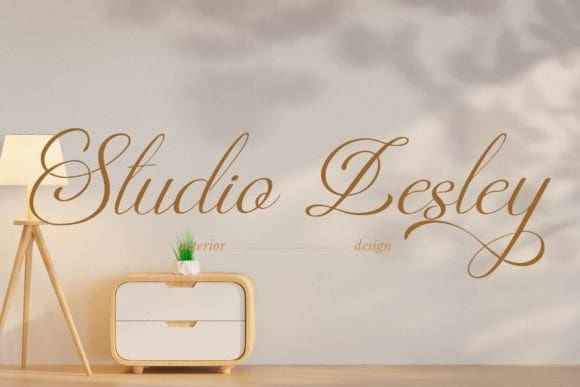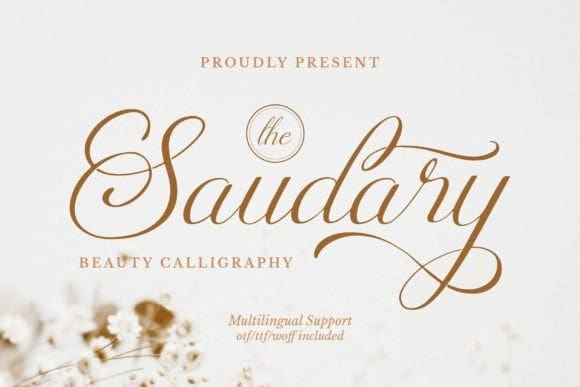
Saudary Font
Saudary Font | Beauty Calligraphy suitable for any projects such as logos, branding projects, homeware designs, product packaging, mugs, quotes, posters, shopping bags, t-shirts, book covers, name cards, invitation cards, greeting cards, labels, photography, watermark, special events, and all your other lovely projects that need a beautiful script taste.